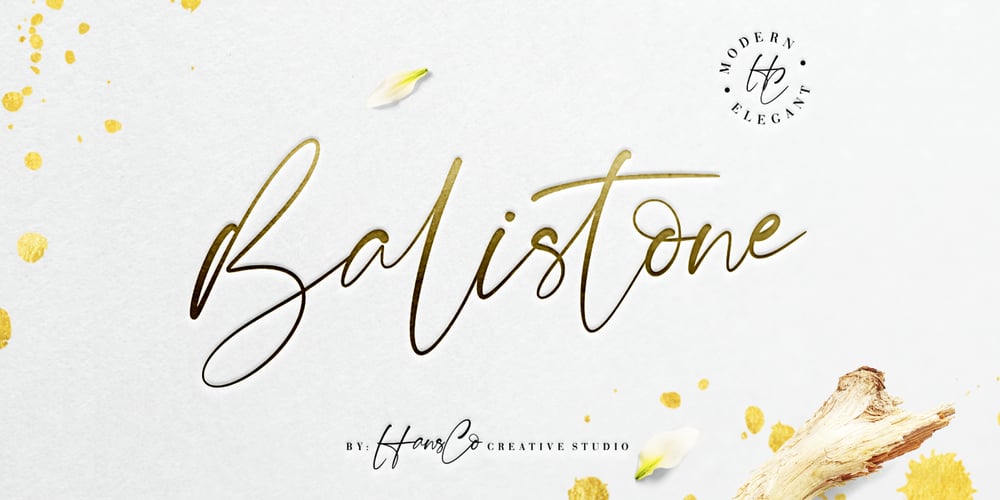
Balistone Font Family was designed by Burhan Afif and published by HansCo. Balistone contains 1 styles and family package options. Balistone is an elegant handwritten font with a clean and modern touch. This font was inspired by a handwriting with a feminine style in distinctive ballpoint ink and a few additional modifications from me. This font come with many ligatures that gives a sleek, elegant look for your logos, business card, wedding invitations, quotes, advertisements, and more. Highly recommended to use it in OpenType capable software – there are plenty out there nowadays as technology catches up with design. The OpenType features can be accessed by using programs such as Adobe Illustrator, Adobe InDesign, Adobe Photoshop Corel Draw X version, Afinity and more. Let’s create something beautiful today with Balistone.Enjoy!